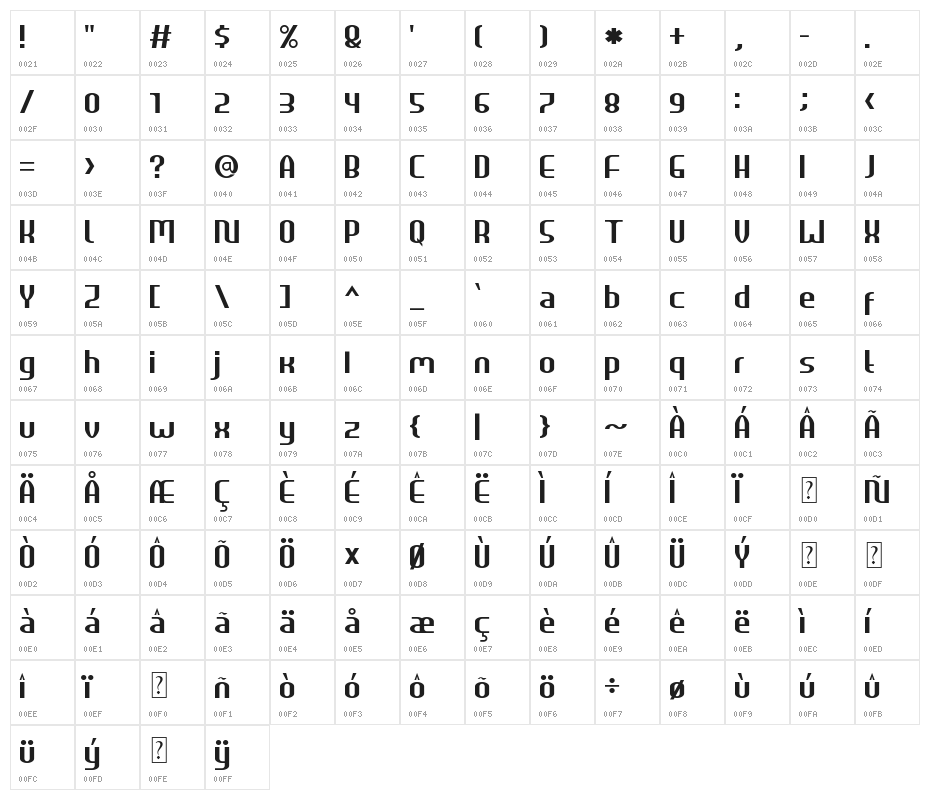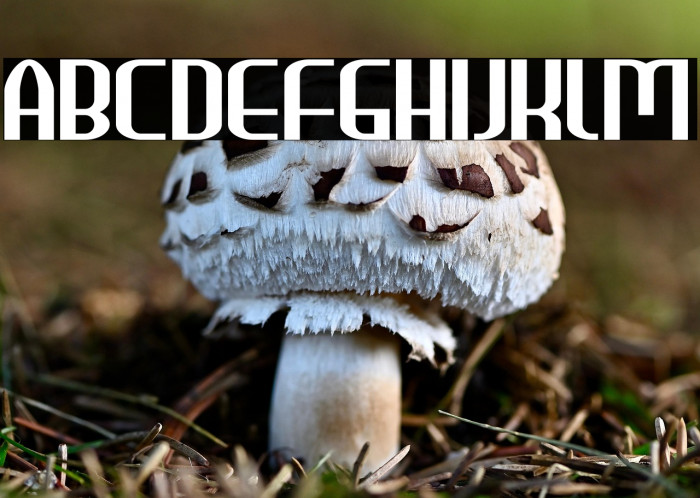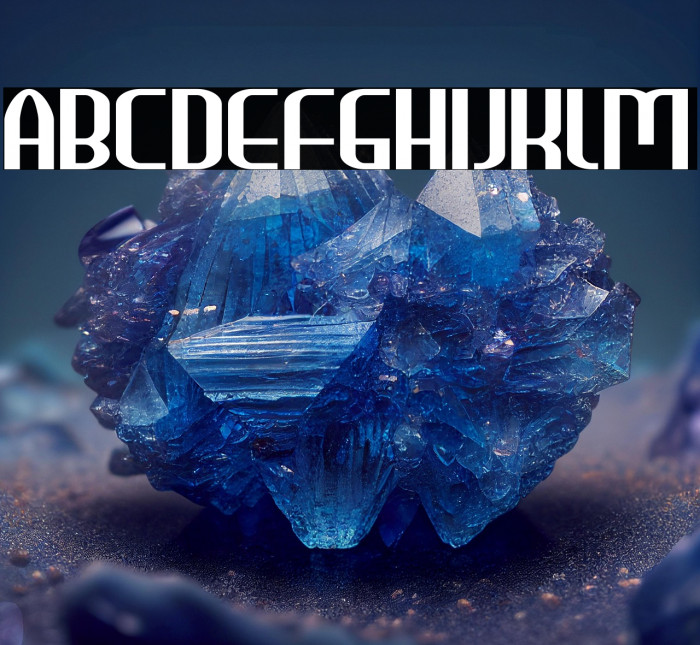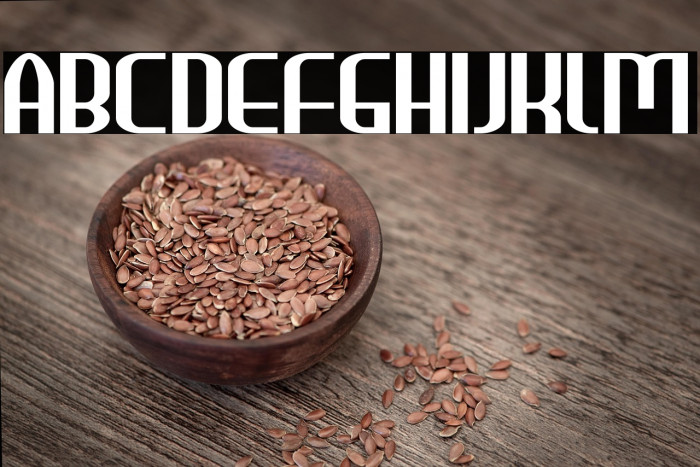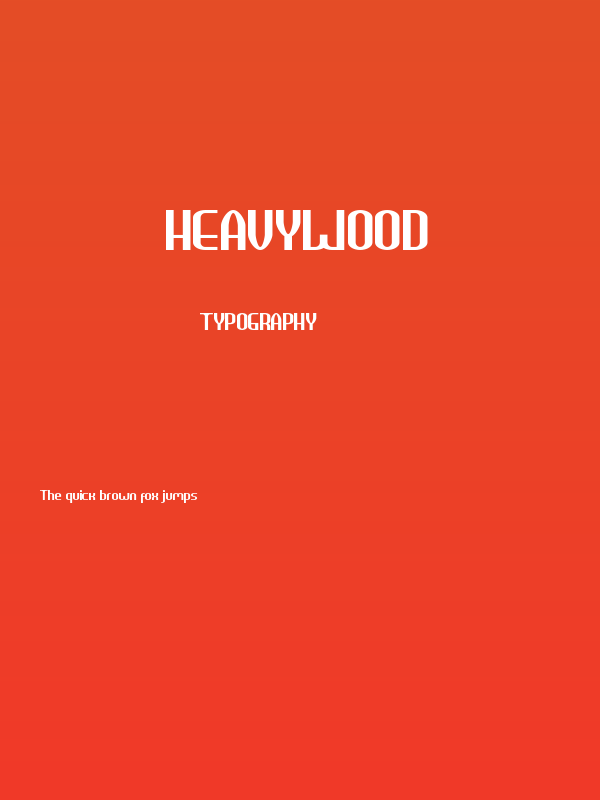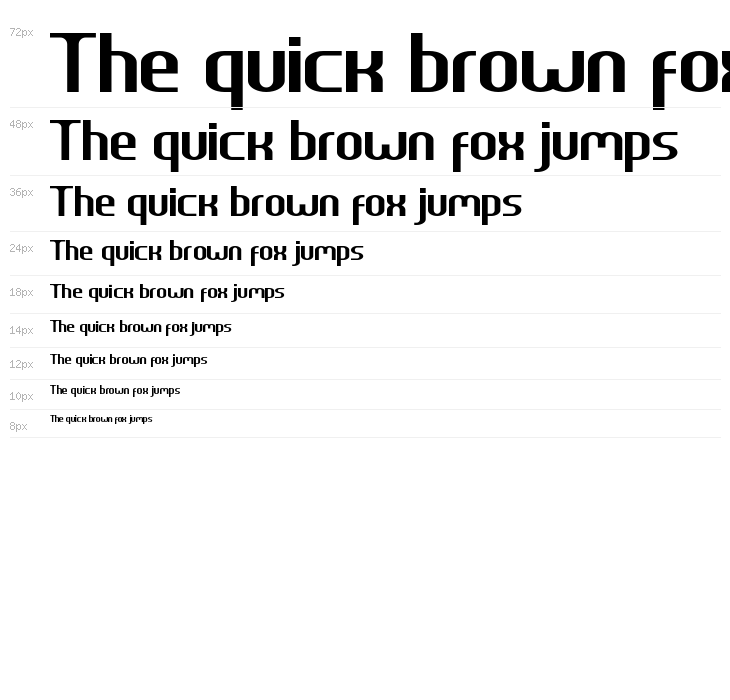
HEAVYwood Font
HEAVYwood Description
This font features a bold and modern design with a strong geometric structure. The characters are crafted with a distinct angularity, giving them a futuristic and dynamic appearance. The uppercase letters are particularly striking, with sharp edges and a consistent stroke width that conveys strength and stability. The lowercase letters maintain the same geometric style, ensuring cohesion throughout the typeface. Numbers and special characters are designed to match the overall aesthetic, making this font versatile for various applications. Its unique style makes it suitable for projects that require a bold statement.